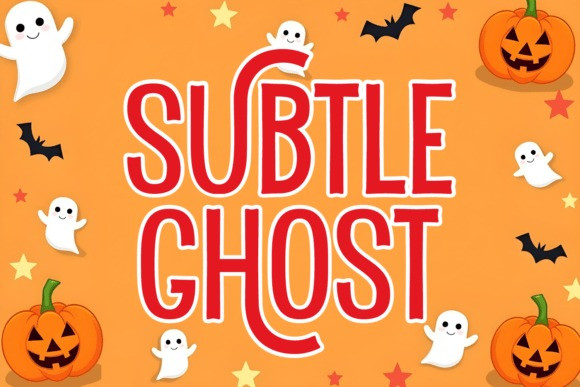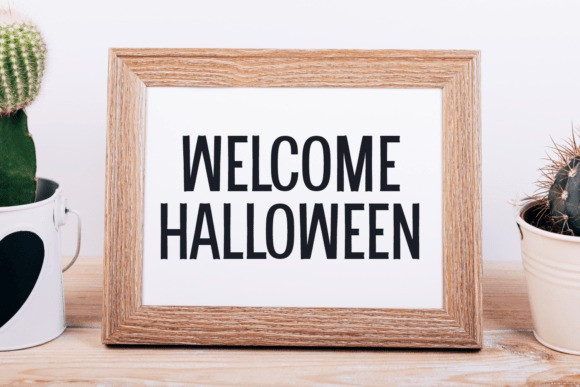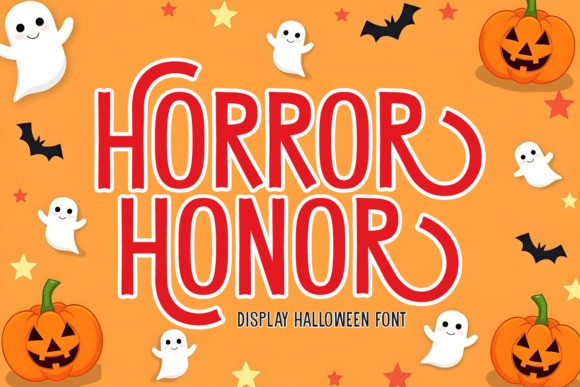
Horror Honor Font
Horror Honor Font – This unique design exudes spine-chilling mystery, offering an eerie aesthetic just in time for the dark season. Make a statement in your Halloween projects, posters, and party invitations with this supernatural font that blends haunting elegance and spooky midnight allure. From witchcraft and ghoul celebration to the trendy trick or treat greetings, this font evokes an autumn season filled with creepy, yet exciting undertones. Its versatility lies in the uppercase ligature and a wicked display that adds a stylish touch to your typography work. Whether you prefer to adorn your shirt, mug, keychain, or wall decor with Halloween quotes, the Horror Honor Witch Font stands out. Its spooky design and scary vibes perfectly mesh to create a trendy October typography, adding a shadowy aesthetic to your Halloween stickers. This font is an enchanting labyrinth of spooky season elegance, designed for the brave and the daring.